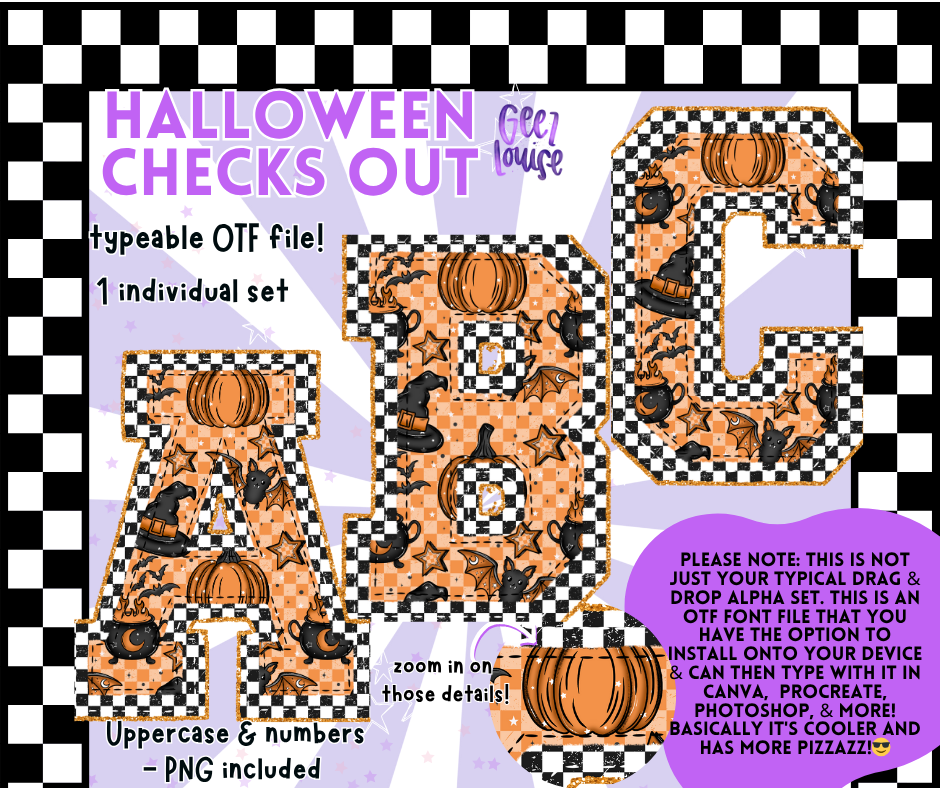
Halloween Checks Out – Spooky Checkered OTF Font + PNGs (Uppercase & Numbers)
The checkerboard trend just met Halloween—and it checks out. 👻🖤🧡
Halloween Checks Out is a spooky-cute OTF font packed with all the Halloween classics: pumpkins, witch hats, bats, cauldrons, and more—layered over a bold orange-and-black checkered vibe.
Whether you're designing creepy-cute graphics or just vibin’ in October mode all year round, this font set is a boo-tiful must-have.